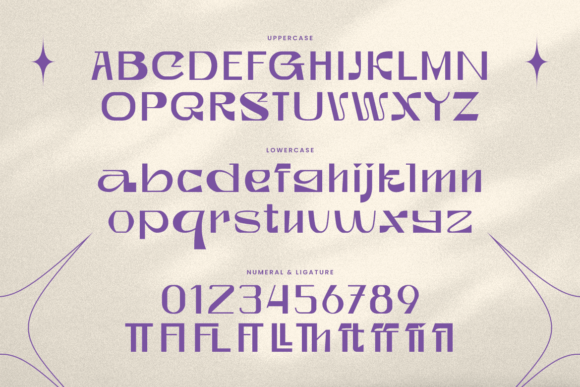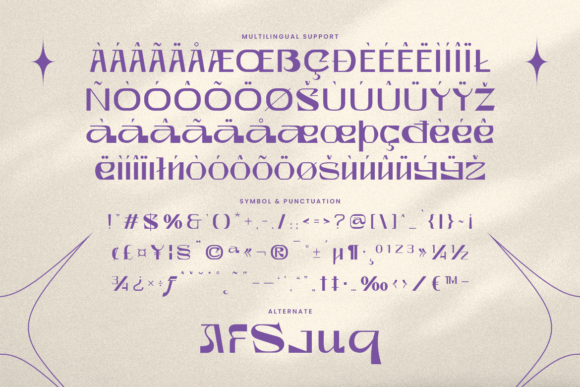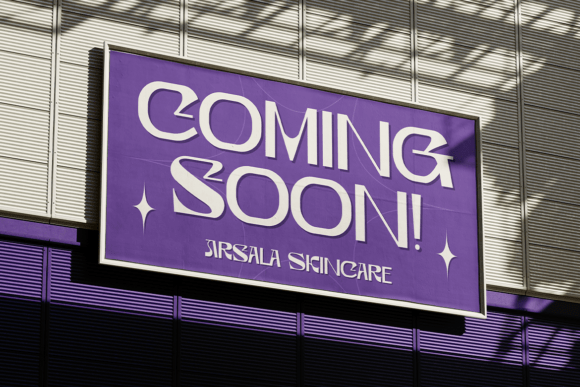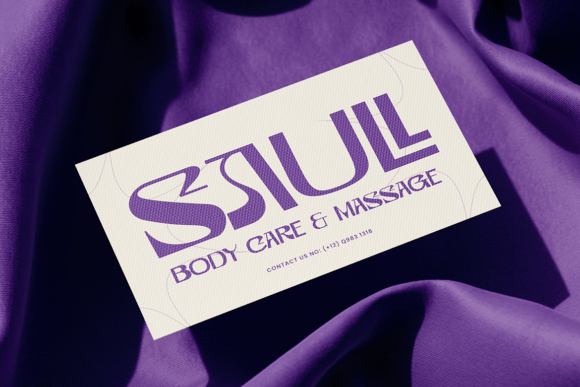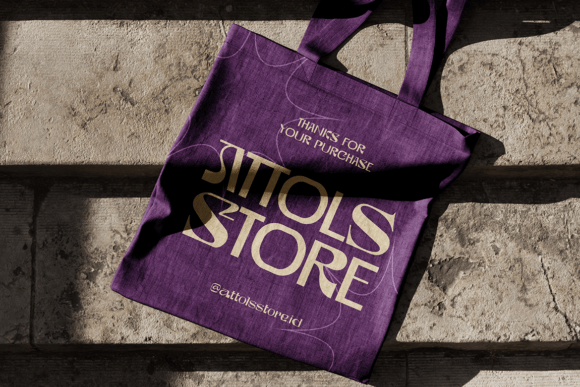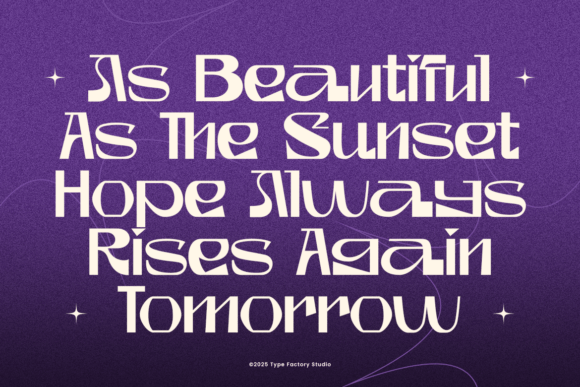
Introduction to Jeevan Font
Have you ever stared at a blank canvas, eager to bring a creative idea to life, only to be held back by the perfect font? That’s where the Jeevan Font comes in – a game-changing design resource that will elevate your creative project to new heights. With its wide modern sans serif style, this high-quality font is designed to make a bold statement, perfect for capturing attention in headlines, posters, and branding materials.
Whether you’re working on a commercial project or a personal passion, the Jeevan Font is a valuable addition to your design toolkit. Its extended letterforms create a strong horizontal presence, while subtle curve details and distinctive terminals add character without sacrificing clarity. Plus, with free download options available, you can experience the Jeevan Font’s versatility and modern personality for yourself.
Key Features of Jeevan Font
- High-quality design resource ideal for creative projects, including logos, graphics, and branding materials.
- Features a unique, elegant design with a transparent background, allowing for easy layering and customization.
- Designed to be highly legible, even at small font sizes, ensuring your creative project stands out with clear and readable text.
Honest Review: Jeevan Font
- ✨ Unique and creative characters: The Jeevan Font has a distinctive style that adds a touch of elegance to any creative project.
- ⚠️ Limited language support: The Jeevan Font currently only supports a limited range of languages, which may be a issue for designers working on multilingual projects.
Overall, I’m impressed with the Jeevan Font, and I would definitely recommend it to designers working on creative projects that require a unique and elegant font. With a few minor tweaks, I think it could be an even more valuable design resource.
Common Use Cases for Jeevan Font
The Jeevan Font is versatile and can be used in a variety of design projects, including branding, logos, and marketing materials. It’s also great for creating social media graphics, presentations, and documents.